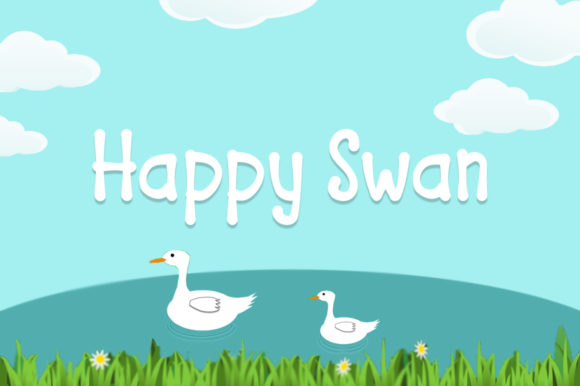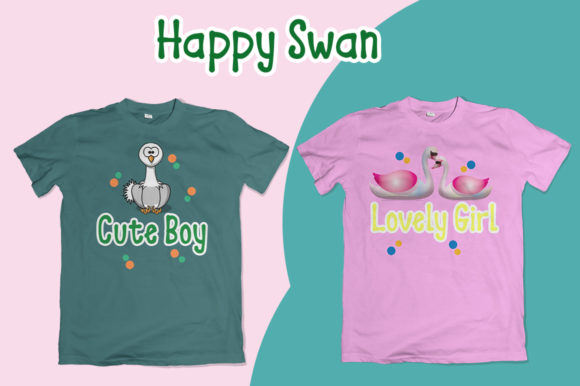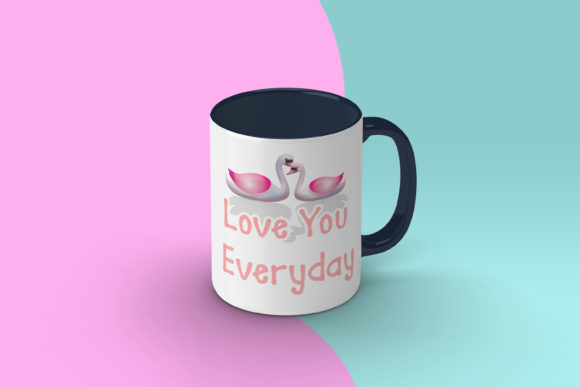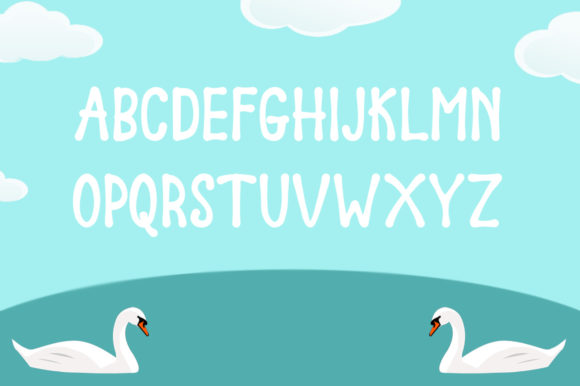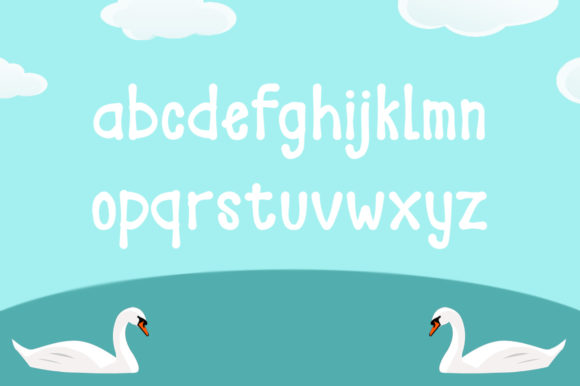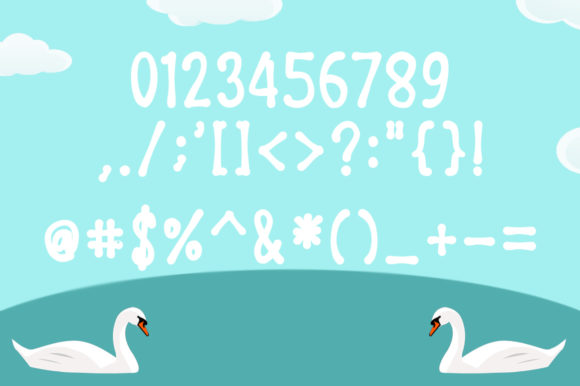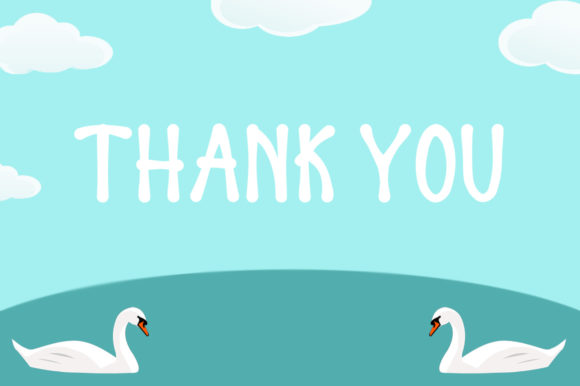
Happy Swan Font
About Happy Swan Font
Happy Swan is a stylish handwritten font. Get creative with its unique playfulness, and use it to brighten up any kids and school project, social media posts, posters, t-shirts and much more!